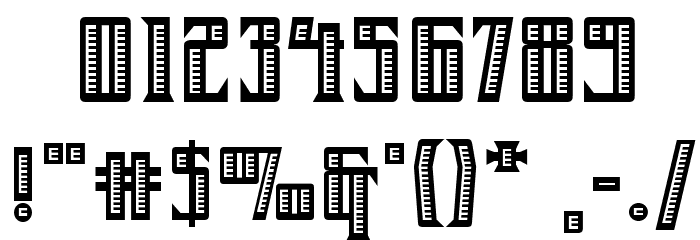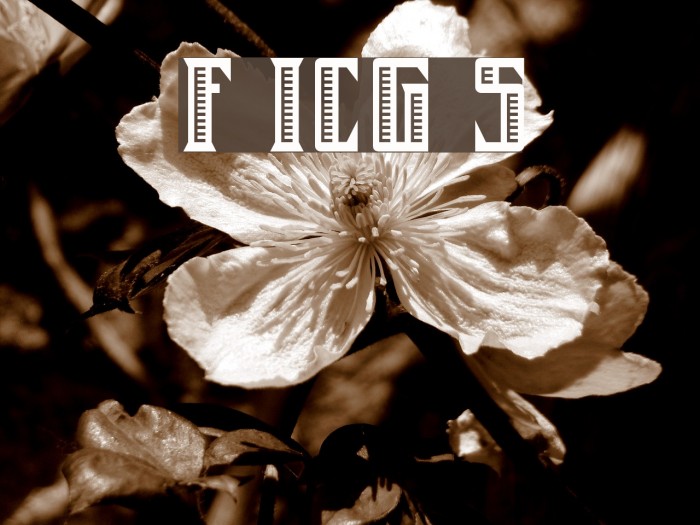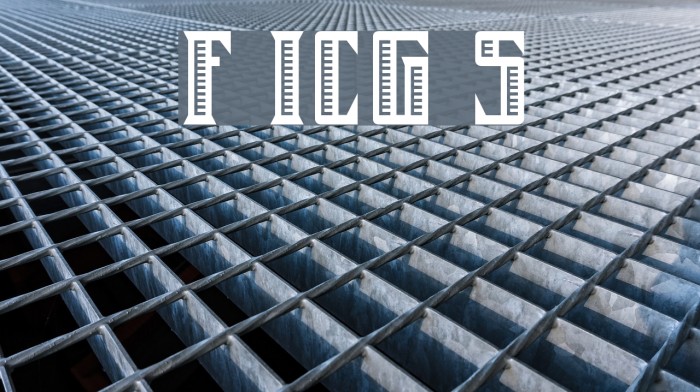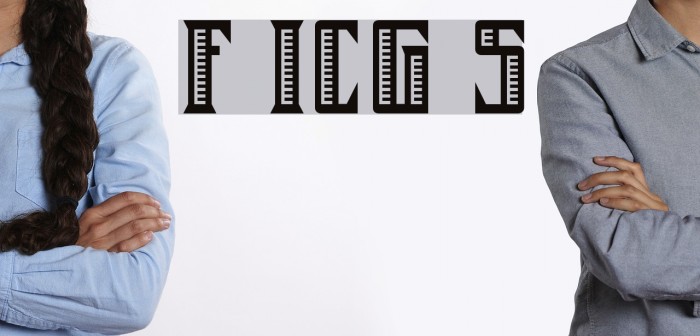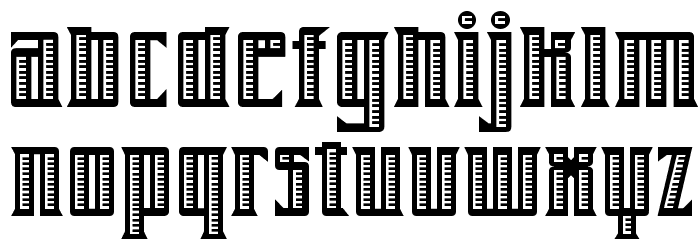
Farrier ICG Shaded Font
Farrier ICG Shaded Description
This font features a bold and distinctive design with a shaded, three-dimensional effect. The characters are blocky and geometric, with a strong presence and a unique style that combines elements of both vintage and modern aesthetics. The shading adds depth and a sense of movement, making the letters stand out prominently. Each character is meticulously crafted with sharp angles and clean lines, giving it a structured and robust appearance. The font is highly decorative, making it ideal for eye-catching designs that require a strong visual impact.
| Proposed Projects | Ideal for poster designs, branding projects, headlines, and any creative work that requires a bold and striking typeface. |